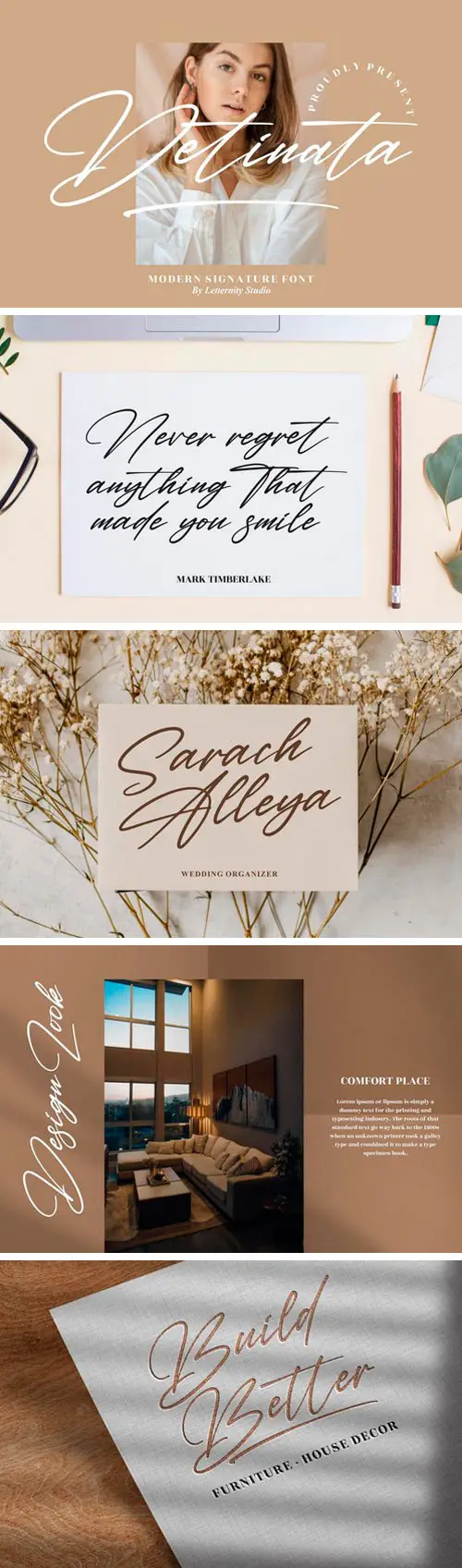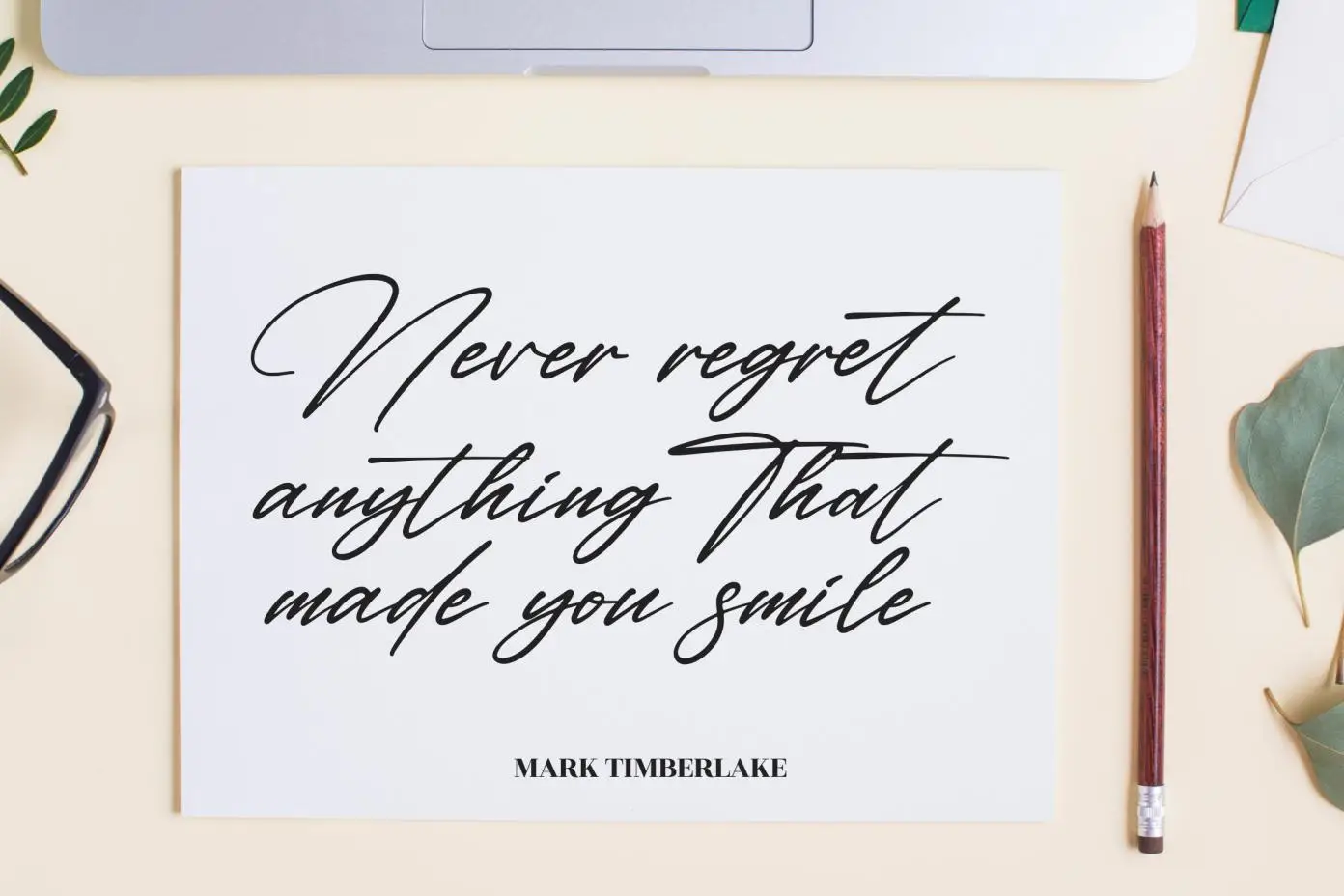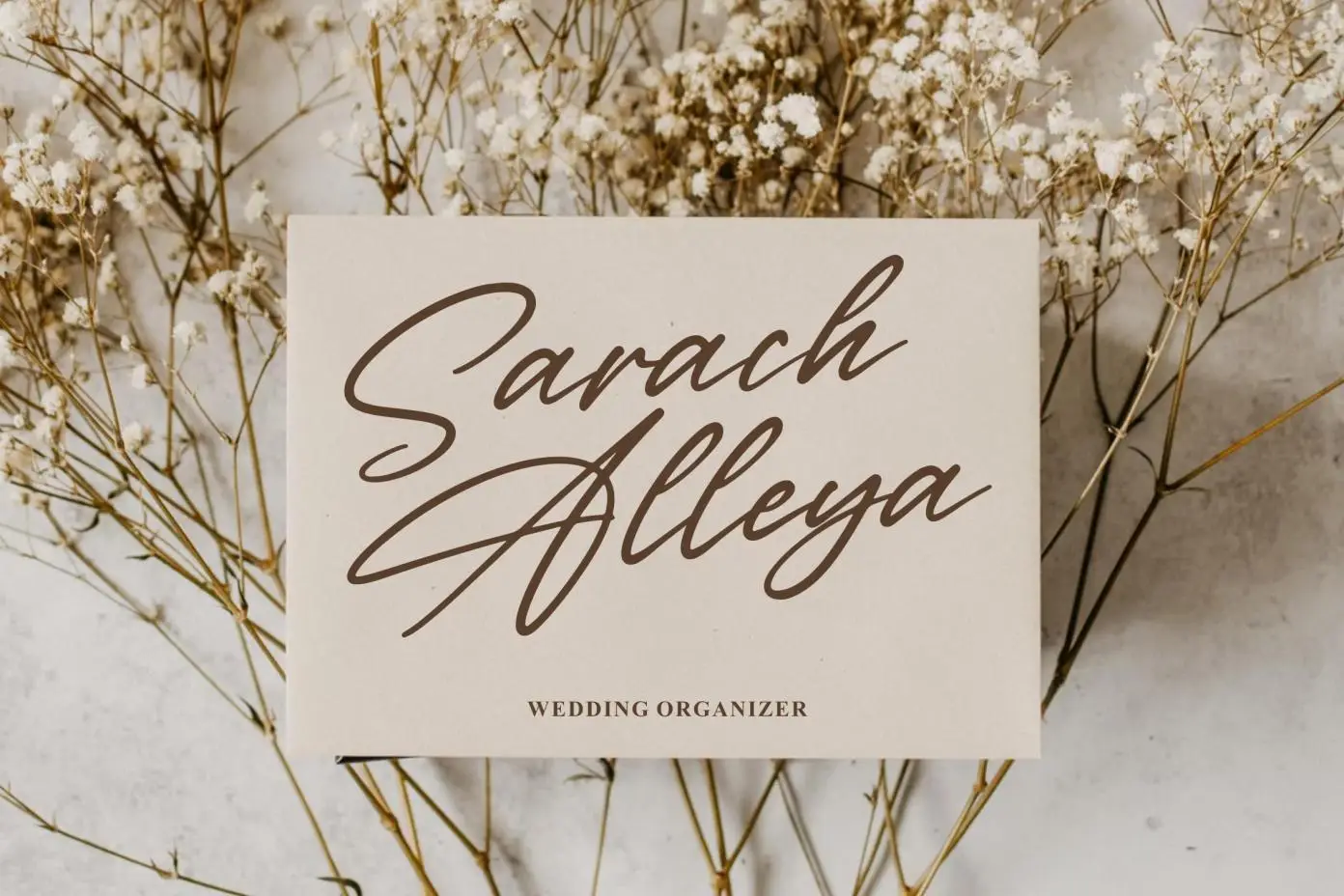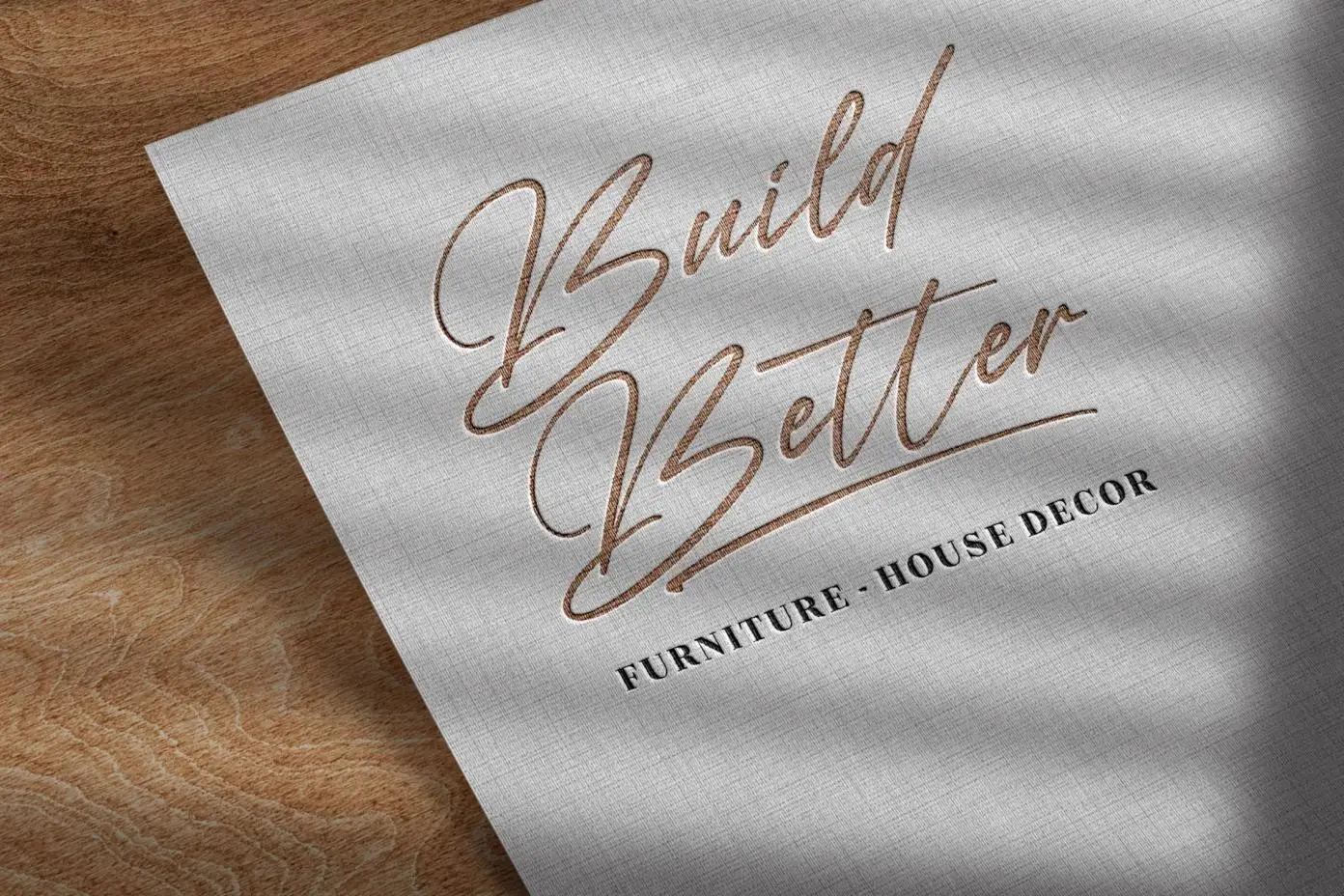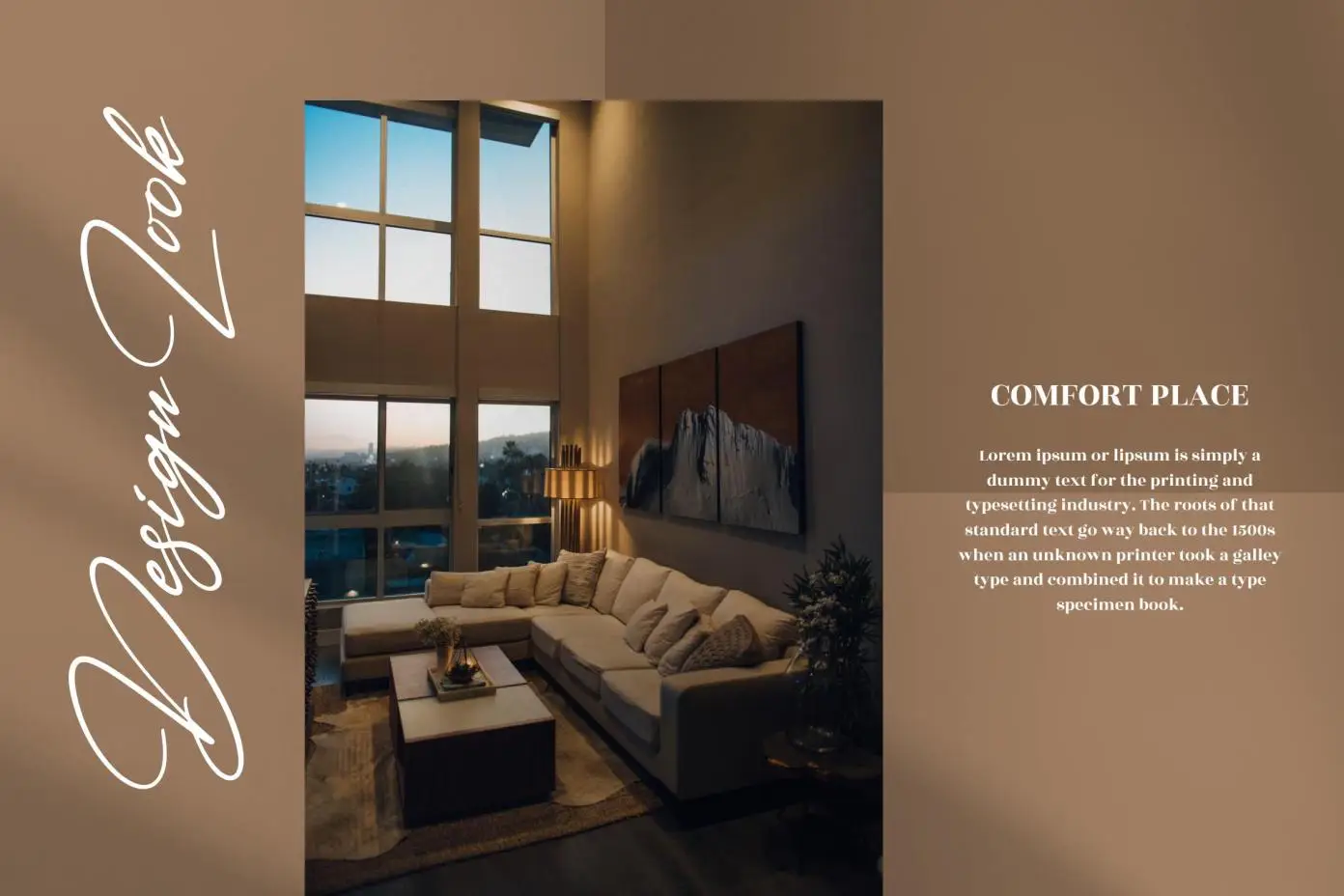
Introducing Detinata, a modern signature font that embodies elegance and sophistication. This font features a unique blend of cursive and handwritten styles, making it perfect for a variety of design projects.
- Stylish and modern cursive design
- Supports multilingual characters
- Weights: Regular, Bold
This font is ideal for branding, logos, invitations, and web design. Its modern signature style adds a personal touch to any project.